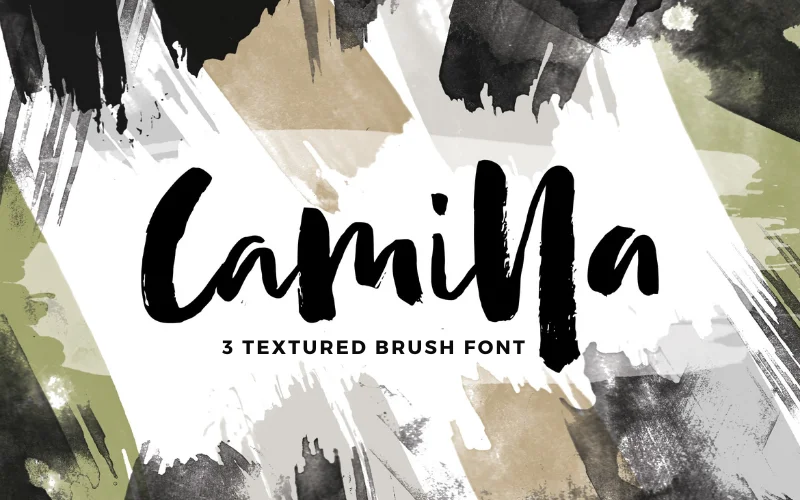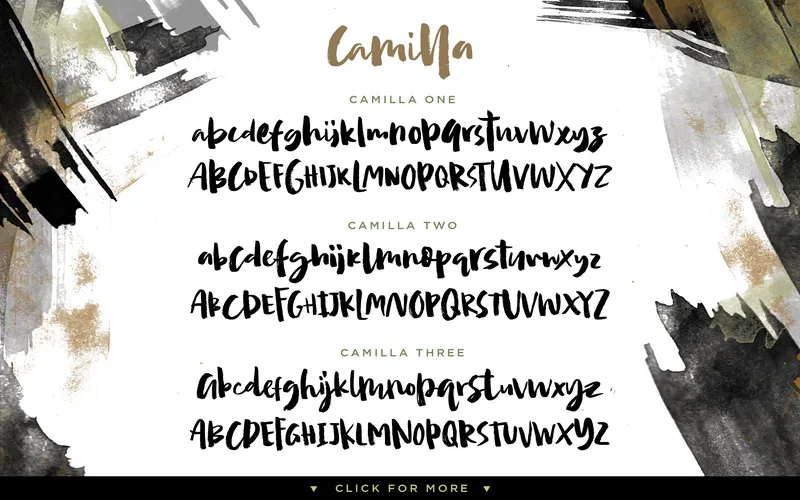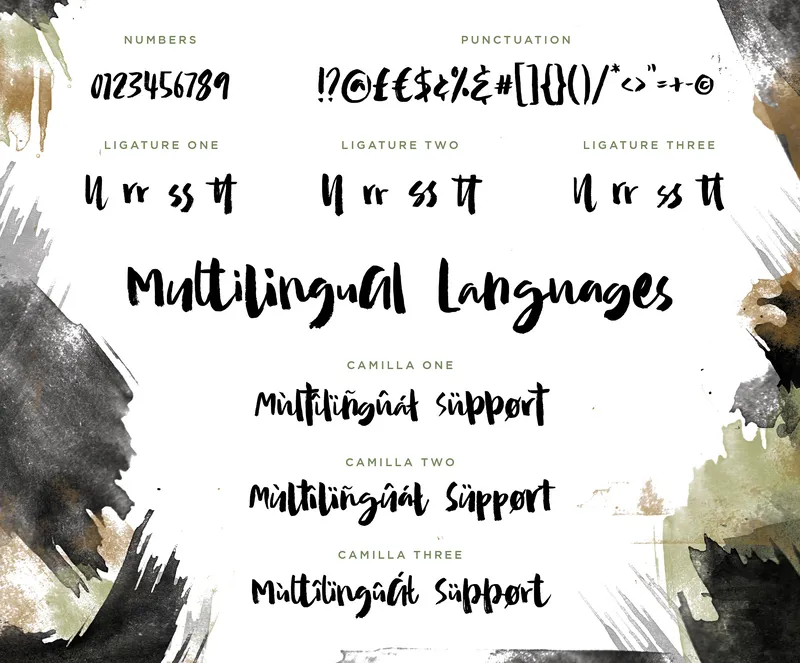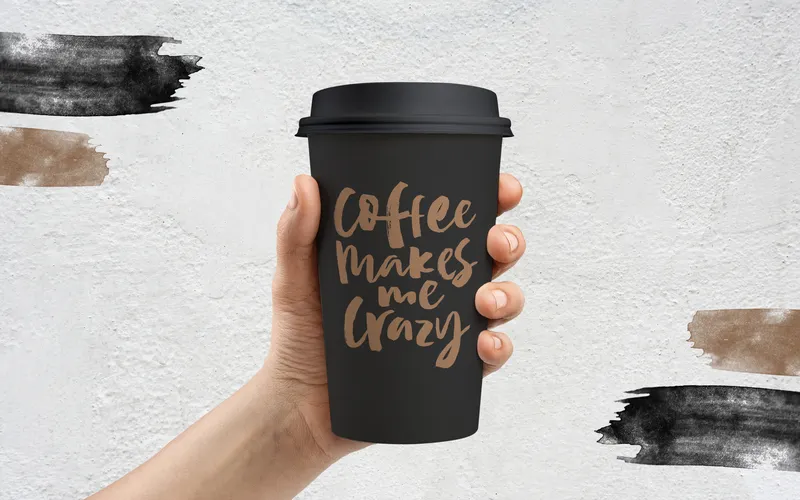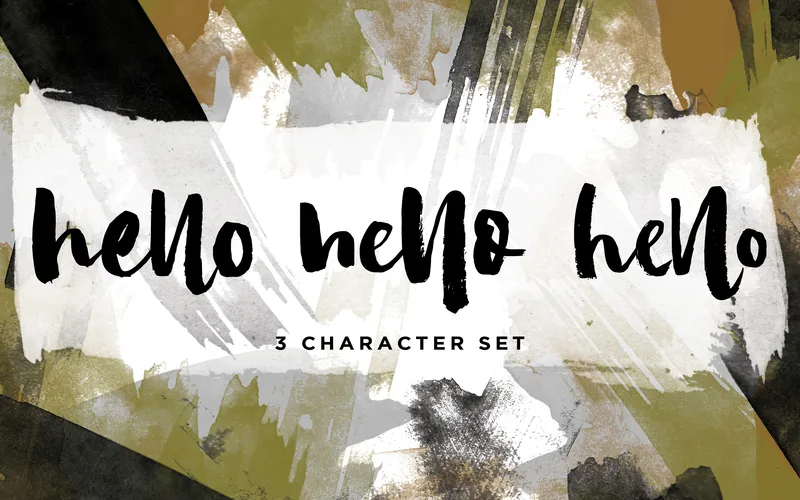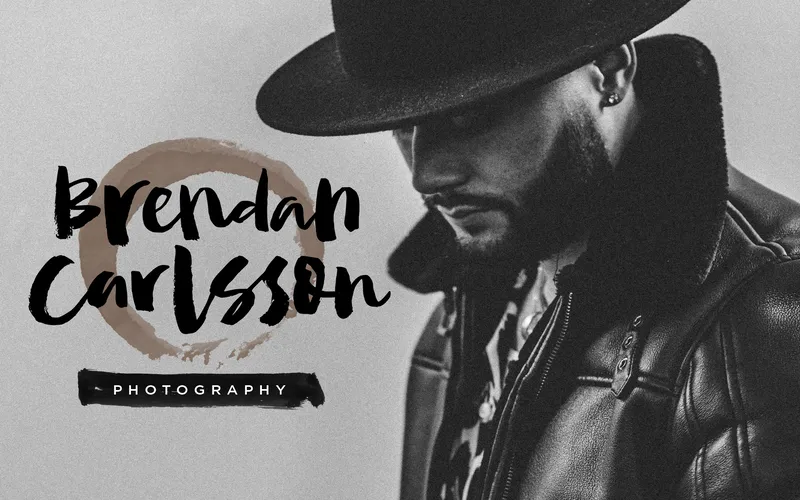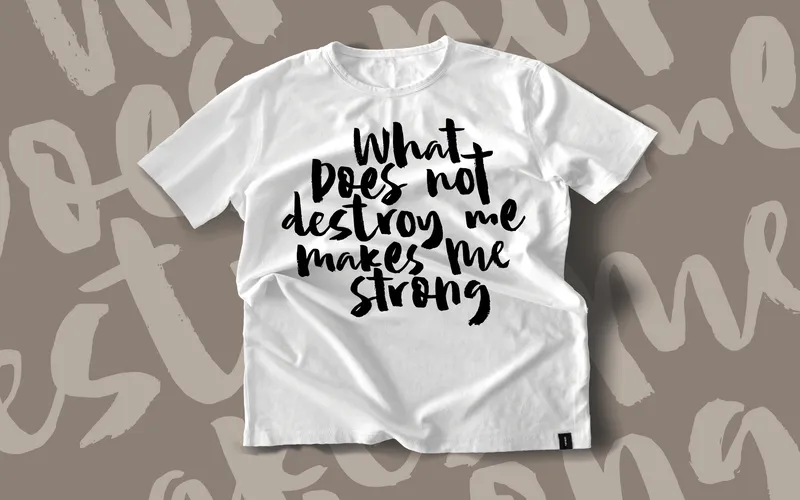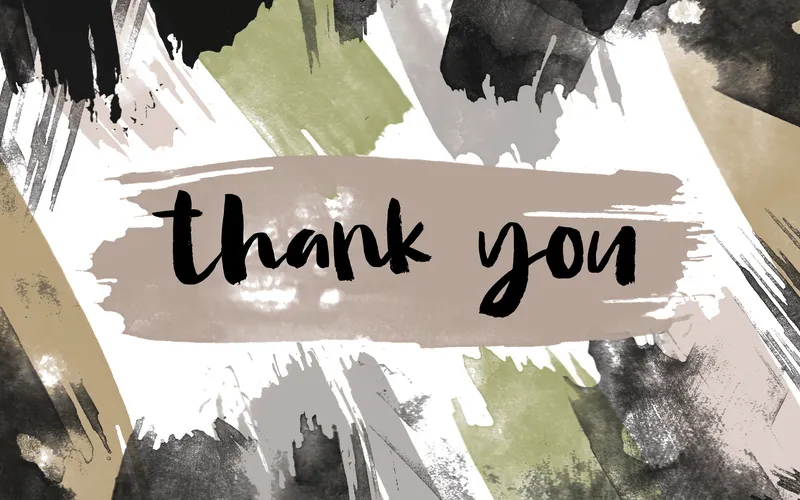
• Camilla Brush Font with 3 Textures
• Supports multiple languages
• Includes ligature, special characters & symbols
Bring a natural, organic look into all your designs and turn them extraordinary from ordinary using the –
Camilla – 3 Textured Brush Font
The Camilla Brush Font is a beautifully handcrafted font with unique textured styles in OTF & TTF.
This font includes realistic brush texture that can add depth and dimension to any of your design work.
In addition, this font supports multiple languages, such as Spanish, Finnish, Filipino, French, and others.
It also supports many special characters and symbols and includes several ligatures.
With its versatility, this font allows you to customize your typography effortlessly.
This font ensures that every word in your design stands out with an artistic flair.
• Multiple Languages Supported: Spanish, Finnish, Filipino, French, Swiss German, & more (see list attached)
• Includes Ligatures: ll, rr, st, tt
• Supports special characters & symbols
• Camilla Texture Font One
• Camilla Texture Font Two
• Camilla Texture Font Three
Here’s A Preview Of The Camilla – 3 Textured Brush Font:
Camilla 3 Textured Brush Font Special Charcters Supported
Camilla Charcter & Languages Supported
Camilla Charcter Sets
Camilla Font Used For Photography Beanding
Camilla Printed On A White T-shirt
Camilla 3 Textured Brush Font Printed On A Coffee Cup
"Thanks" written using the Camilla Font